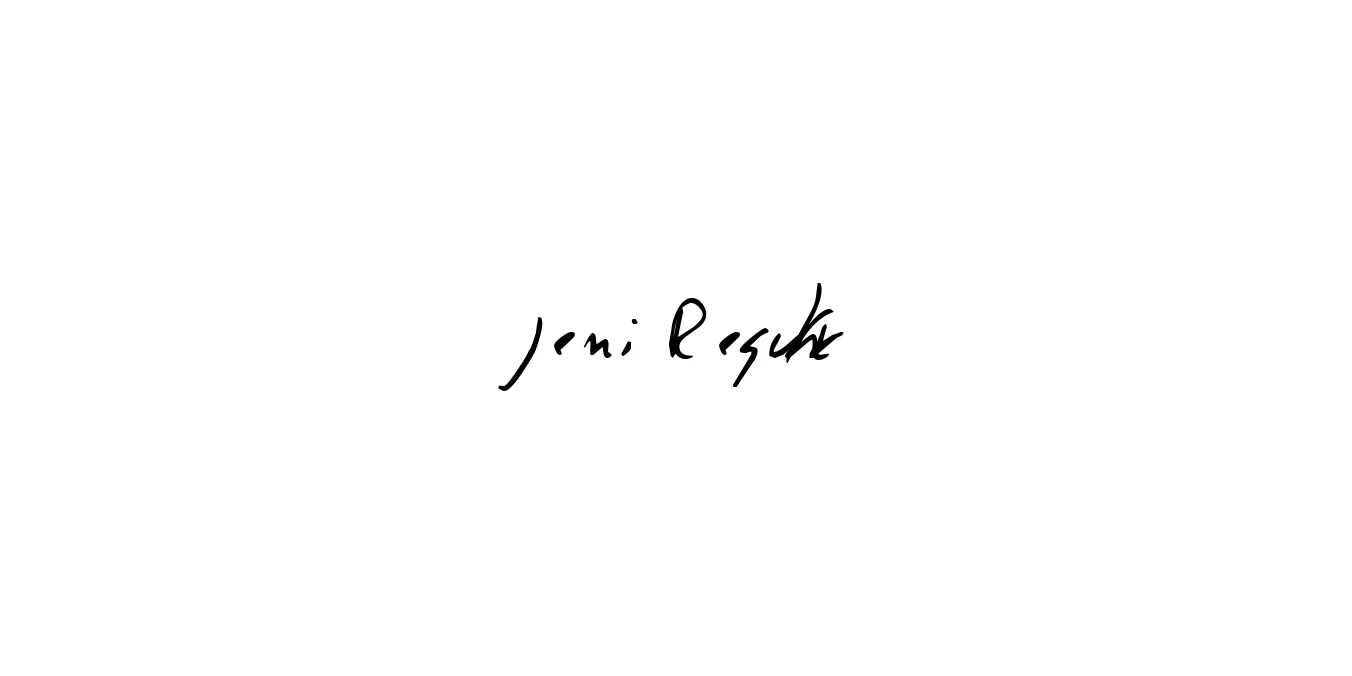
jeni Regular
Designed by Zulhelman Studio
Jeni Regular is an exquisitely crafted script typeface that captures the essence of modern calligraphy with a touch of timeless elegance. Designed to offer a fluid and natural handwriting feel, it features delicate strokes and balanced proportions that make it stand out in both digital and print environments. The font's organic flow is intended to bring a personal, human touch to design projects that require a sense of sophistication and intimacy.
This typeface is particularly versatile due to its clean letterforms and extensive character set, which often includes decorative ligatures and stylistic alternates. Whether used for high-end branding or simple personal projects, Jeni Regular maintains its legibility while providing a distinct aesthetic flair. It has quickly become a favorite among designers for creating inviting and stylish visual narratives.
jeni Regular Best Uses
Adds a romantic and sophisticated touch to invitations and place cards.
Perfect for creating unique, signature-style logos for boutique and lifestyle brands.
Enhances the visual appeal of magazine headers and pull quotes.
Ideal for aesthetic Instagram posts and Pinterest graphics.